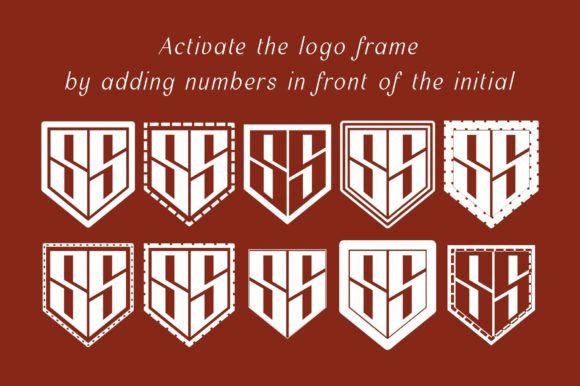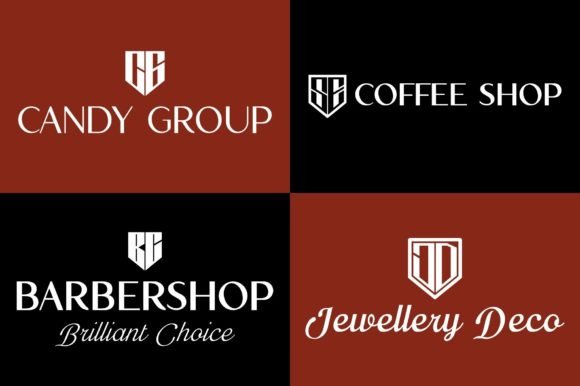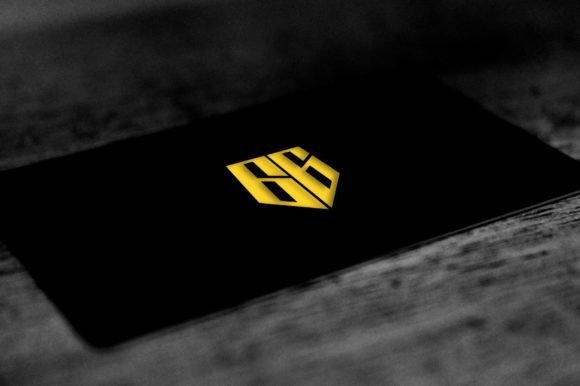
Introduction to Pentagram Two Letter Font
Pentagram Two Letter is a unique monogram font that combines elegance and simplicity.
The clean and modern design features two interlocking letters, making it perfect for creating personalized logos and branding The font is versatile and suitable for a range of designs, from wedding invitations to corporate stationery.
Key Features of Pentagram Two Letter Font
Why Choose Pentagram Two Letter Font?
Pentagram Two Letter Font offers exceptional quality and versatility, making it a valuable addition to your design toolkit. Whether you’re creating for personal projects or commercial use, Pentagram Two Letter Font delivers professional results.